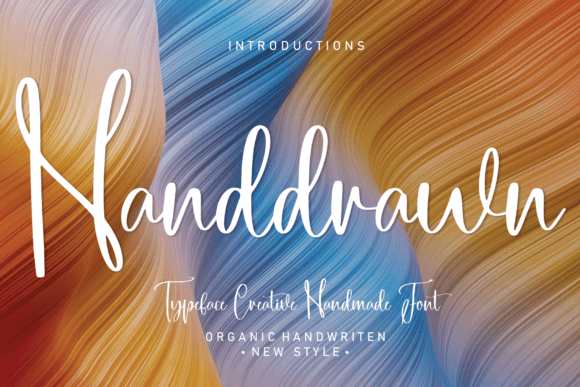
Introducing Handdrawn Font, the perfect addition to your font collection. Created by andikastudio, this modern and neat handwritten font is a must-have for anyone looking to add a personal touch to their designs. Whether you're creating a logo, designing a website, or crafting a social media post, Handdrawn Font is the perfect way to add a unique and creative flair.
One of the key features of Handdrawn Font is its versatility. With a wide range of weights and styles, this font can be used for a variety of projects, from elegant wedding invitations to bold and playful product packaging. Plus, the handwritten style adds a touch of personality and authenticity to your designs, making them stand out from the crowd.
So why should you download Handdrawn Font? Because it's more than just a font - it's a tool for creativity. With its unique style and versatile design, Handdrawn Font is the perfect way to add a personal touch to your designs and make them truly stand out. Plus, with its easy-to-use format and wide range of weights, you'll be able to create stunning designs in no time.